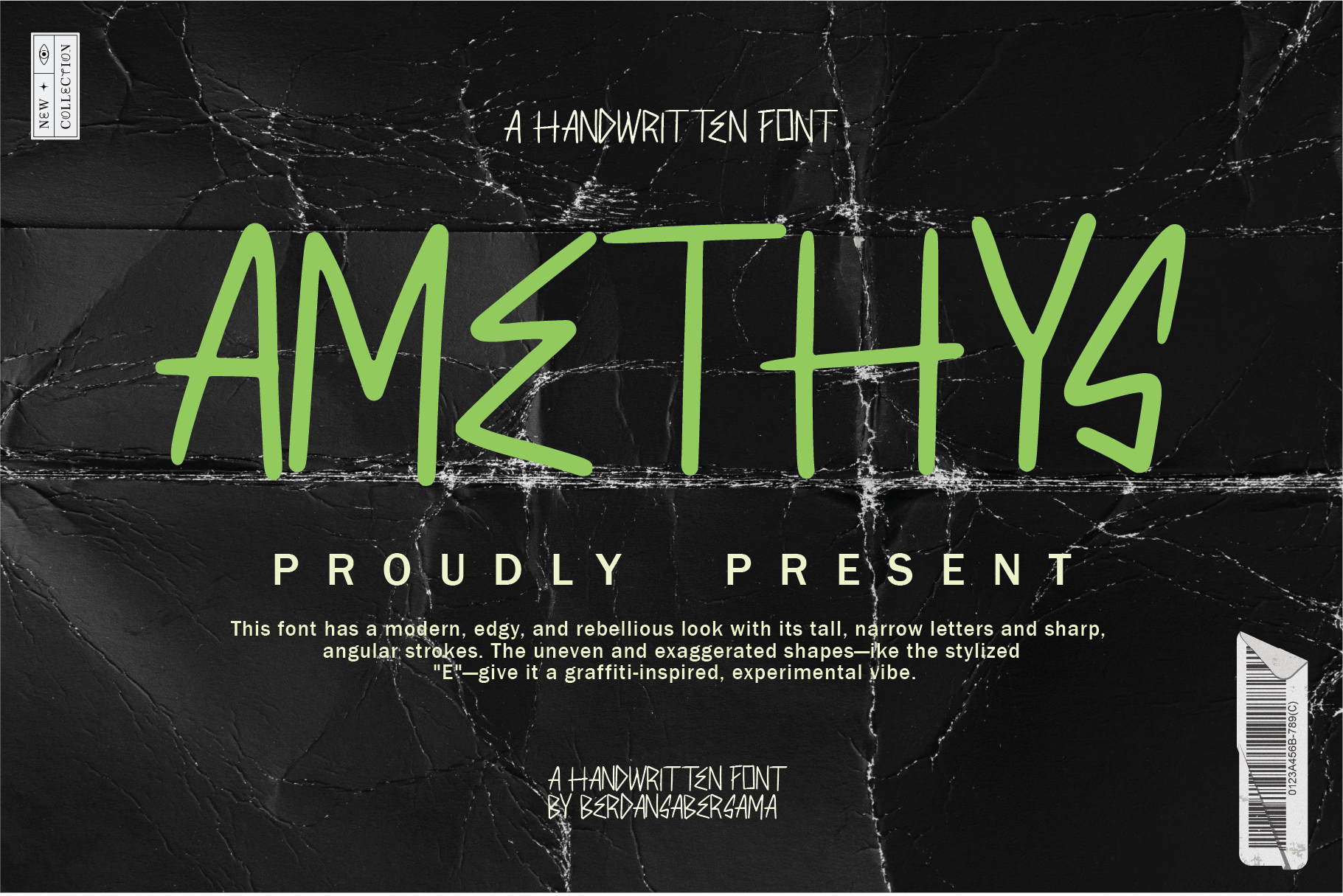
Amethys a Handwritten Font
Amethys is a bold, edgy handwritten display font with a raw, energetic movement in every stroke. Its sharp angles and uneven letter shapes create a rebellious, street-style attitude, perfect for designs that want to feel loud, alive, and full of personality.